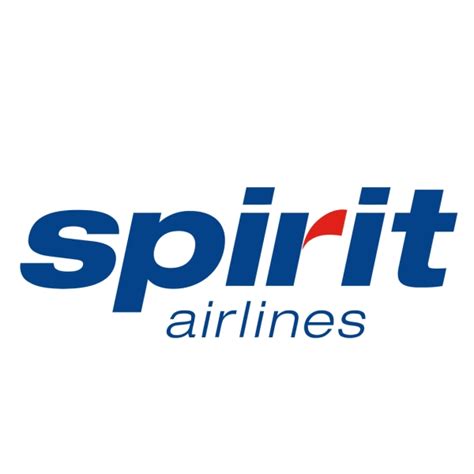
Decoding Spirit Airlines Font: A Guide For Designers
Hey there, design enthusiasts! Ever wondered about the distinctive look of Spirit Airlines? Well, a big part of their brand identity comes down to a specific font. And if you’re a designer, or just curious about typography, understanding the Spirit Airlines font can be super useful. So, let’s dive into the details, shall we? We’ll explore the font’s history, its key characteristics, how to identify it, and where you might find it. Plus, we’ll talk about how you can use this font (or similar ones) in your own projects. Get ready to level up your design knowledge and appreciate the subtle art of font selection. It’s time to unlock the secrets behind one of the most recognizable fonts in the airline industry. Let’s get started, guys!
The Spirit Airlines Font Unveiled: What You Need to Know
Alright, let’s get down to the nitty-gritty. The primary font used by Spirit Airlines is a customized version of Gill Sans Ultra Bold . Originally designed by Eric Gill, this font is known for its clean, geometric style. It’s got that modern, sans-serif look that’s perfect for a brand that wants to project a sense of both modernity and affordability. Now, Spirit’s version isn’t exactly the standard Gill Sans Ultra Bold; it’s been modified a bit to create a unique feel for the airline. These modifications can be subtle, but they contribute to the overall brand aesthetic. Think of it like this: Gill Sans Ultra Bold is the base, and Spirit has given it a special coat of paint to make it their own. The use of a bold font is super important for brand recognition. It grabs your attention and helps Spirit stand out from the crowd. The font’s legibility is another key aspect. It’s designed to be easily readable, even at smaller sizes or in various contexts like on a plane or on a website. This readability is critical for any brand that wants its message to be quickly understood. In addition to Gill Sans Ultra Bold, Spirit might use other fonts for different purposes. You might see a variety of fonts used in different contexts like the body text of their website or in their internal documents. But the headline, the logo, the stuff that really catches your eye? That’s typically Gill Sans Ultra Bold (or its customized Spirit variant) shining through. Understanding these details can help you appreciate how the airline constructs its visual identity and how it communicates with its audience. From the moment you see the Spirit logo, to the signs at the airport, the font plays a vital role in creating the overall experience. Plus, it reflects their core brand values in a way that’s both memorable and impactful. Let’s face it, fonts are not just about the letters; they are about communicating a message.
The Characteristics that Define Spirit Airlines’ Font
Let’s zoom in on the specific traits that make the Spirit Airlines font so recognizable. Firstly, it has a bold weight . This means the strokes that make up the letters are thick and impactful. This boldness conveys a sense of strength, confidence, and immediacy. It’s designed to catch your eye and hold your attention. Secondly, it is a sans-serif font . Sans-serif fonts are known for their clean, modern look. The term “sans-serif” literally means “without serifs.” Serifs are those little strokes or extensions that you see at the end of some letter strokes (think of Times New Roman). Sans-serif fonts don’t have these, giving them a more streamlined and contemporary appearance. The absence of serifs provides a simple, direct style, which is super effective for modern branding and messaging. Thirdly, it is characterized by its geometric shapes . The letters are often based on simple geometric forms like circles and straight lines. This feature contributes to the font’s clean, modern feel, and it makes the letters easy to distinguish from each other. Finally, the customization of the original Gill Sans Ultra Bold is key. Spirit has likely tweaked some aspects of the font to match their unique brand identity. These tweaks can include adjustments to the letter spacing, curve shapes, and overall visual balance. Understanding these characteristics will give you a better sense of how fonts work in conveying brand messages and constructing visual communications. The combination of boldness, sans-serif design, geometric shapes, and customization helps Spirit achieve its distinctive brand identity. So the next time you see the Spirit logo, you’ll know what makes it unique. In summary, it’s all about a bold, clean, and modern look that captures attention and conveys key brand values.
How to Identify the Spirit Airlines Font
Alright, so how do you spot the Spirit Airlines font in the wild? Here’s a quick guide to help you identify it, whether you’re looking at a logo, a website, or an advertisement. First off, look for bold strokes . The font is heavy, so the lines of the letters are thick and visually dominant. If you see thick strokes, you’re on the right track. Secondly, note the sans-serif style . Remember, there are no little decorative feet (serifs) at the end of the letter strokes. This sleek design is a giveaway. Then, pay attention to the geometric shapes . Look for letters that seem to be constructed from simple geometric forms like circles, squares, and straight lines. The ‘O’s might be perfectly round, and the letters will appear very balanced and organized. Take a close look at the letterforms . Specifically, focus on the ’S’, ‘p’, and ‘i’ to get the best match. This is what can make or break a match. Lastly, and this is where it gets a bit more challenging, look for the customized details . Spirit might have tweaked the font to make it unique. It’s often really subtle, but you might notice slight differences in letter shapes or spacing. If you’re a designer, you can use these clues to identify the font or to find a close match. When you’re trying to figure out which font is being used, there are some pretty cool online tools you can use, such as WhatTheFont or Fontspring Matcherator. These tools let you upload an image of the text you’re curious about and they attempt to identify the font. They’re not always perfect, but they can be a great starting point. Another way is to compare it to the known font like Gill Sans Ultra Bold. Compare the letterforms. The more similar the letterforms appear, the more likely you are to have a good match. Keep in mind that Spirit has made adjustments, so it might not be a perfect match. In other words, trust your eye. So now you know how to identify the Spirit Airlines font. Keep these tips in mind next time you see their branding. And hey, maybe you’ll become a font spotting pro!
Finding and Using the Spirit Airlines Font (or Similar Alternatives)
Let’s talk about using the Spirit Airlines font (or fonts like it) in your own design projects. First off, you may not be able to get the exact Spirit Airlines font. Airlines usually have custom versions of fonts, so the specific version they use might not be publicly available. However, Gill Sans Ultra Bold is a solid match, and you can readily find and use it. It’s a great choice if you’re looking for something that captures the spirit of the airline’s branding. You can find Gill Sans Ultra Bold on various font websites. You’ll find it from the standard font libraries, such as Adobe Fonts or Google Fonts. Depending on your needs, you might have to purchase a license. Before you commit to using any font, always check the licensing terms to make sure you’re legally able to use it for your project. If you’re looking for free alternatives, there are plenty of sans-serif fonts that share similar characteristics. Some great options to consider are Impact , Arial Black , or Roboto Black . These fonts are bold, legible, and have a modern feel. They are ideal for conveying confidence and impact in your design work. When choosing a font for your project, think about the overall tone and message you want to convey. If you want something that’s bold, modern, and easily readable, these fonts are great choices. You can use these fonts in a wide range of design projects, from logos and websites to print materials and social media posts. The key is to match the font to your brand’s personality and values. By using fonts like the Spirit Airlines font (or similar ones), you can give your design projects a sense of strength, modernity, and clarity. Plus, you’ll be tapping into a well-established design aesthetic that can really resonate with audiences. So go ahead, experiment with these fonts and see what you can create!
The Psychology Behind Font Choices: Why it Matters
Ever thought about why brands put so much thought into choosing their fonts? It’s not just about aesthetics, guys; fonts have a powerful effect on how we perceive a brand. The Spirit Airlines font, for example, conveys a sense of boldness , affordability, and modernity. So, why does the font choice matter? Fonts communicate a lot more than just words. They communicate the personality, values, and even the history of a brand. Let’s see some more points. Different font styles evoke different emotions. A bold, sans-serif font like the one Spirit uses often projects confidence and reliability. It gives the impression that the brand is confident in what they offer. Fonts affect readability . A well-chosen font is easy to read, ensuring your message is quickly understood. Poorly chosen fonts can strain the eyes and make it difficult for people to understand your brand. Consistency is also super important, especially if you’re building a brand identity. The consistent use of a font across all your branding materials helps create a strong and recognizable visual identity. Fonts can also enhance your brand’s personality . Spirit’s font contributes to its reputation for affordability and its modern approach to travel. Fonts can subtly guide consumer behavior . They can influence a customer’s perception of your product or service. The right font choice can support marketing goals, from increasing conversions to building brand loyalty. It’s not just about finding a font that looks good. It’s about selecting a font that aligns with your brand’s values, speaks to your target audience, and helps you achieve your business objectives. So, next time you see a font, think about all of the factors that are playing a role in the design. It is a powerful tool for conveying a message, shaping perceptions, and driving results.
Spirit Airlines Font in Action: Where You’ll See It
The Spirit Airlines font is used everywhere. Knowing where to look will help you to identify it. You’ll see it everywhere that Spirit wants to make a statement. The most obvious place is the Spirit Airlines logo . The logo is the heart of any brand, and Spirit’s font is integral. Look for the bold, sans-serif lettering in their logo. The font is designed to be easily recognizable and to help people immediately associate with the brand. Take a peek at their website . Fonts play a crucial role in website design. It will be the headlines, subheadings, and calls to action. It creates a seamless and cohesive user experience. It’s not just about aesthetics; it’s also about usability and accessibility. Next time you’re booking a flight, take note of the signage at the airport . From the gate numbers to the information displays, the font will be used throughout. The font is chosen for its readability. It’s vital for communicating important information quickly. They’re also smart to use it for their marketing materials . This includes advertisements, brochures, and social media posts. The font helps create a cohesive brand image and to attract attention. The font is used across a variety of promotional content, so the public always knows the style of the brand. Keep an eye out for these applications, and you’ll get a feel for how the Spirit Airlines font is used. From the logo to airport signage, the font is an important component of the Spirit Airlines brand. Recognizing where and how it’s used will help you to appreciate the design.
Conclusion: The Enduring Appeal of the Spirit Airlines Font
So, there you have it! We’ve covered the ins and outs of the Spirit Airlines font, from its core characteristics to where you can find it. By now, you should have a good understanding of what makes this font so special. Remember, the choice of a font isn’t arbitrary. It’s a deliberate decision that reflects a brand’s personality and values. In the case of Spirit Airlines, the font perfectly complements their brand. It communicates confidence, modernity, and a commitment to affordability. The font’s enduring appeal lies in its bold, clear, and easily recognizable style. It’s a font that grabs your attention and conveys key information quickly. And that, in a nutshell, is the power of good typography. Understanding these design elements can enrich your appreciation for brand design. And if you’re a designer, it gives you a deeper understanding of how to use fonts to create effective and memorable brand identities. So keep exploring, keep experimenting, and keep an eye out for interesting fonts in the world around you. Who knows, maybe you’ll discover the next big design trend! That is all guys, good luck and see you in the next post!